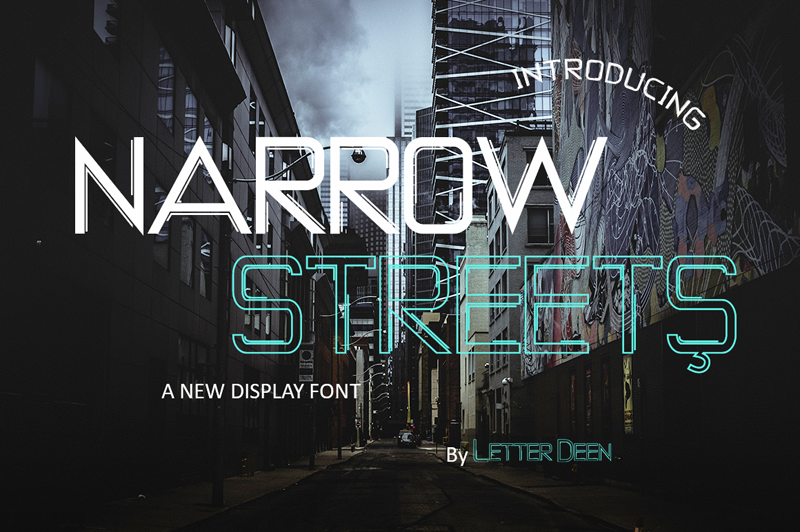
Font name: | Narrow Streets |
Author: | Muhammad Wahyudin |
NARROW STREETS is a new display font. Include NARROW STREETS-REGULAR & NARROW STREETS-OUTLINE. Font with multilingual support. NARROW STREETS is perfect for fashion magazines, product watermarks, branding projects, logo, wedding designs, social media posts, advertisements, product packaging, product designs, label, photography, watermark, invitation, stationery and any projects. NOTE: This demo font is for PERSONAL USE ONLY! But any donation are very appreciated. Paypal account for donation : https://www.paypal.me/wahyudin1886 Link to purchase commercial license : https://thehungryjpeg.com/product/3615891-narrow-streets-a-display-font Thank you. |